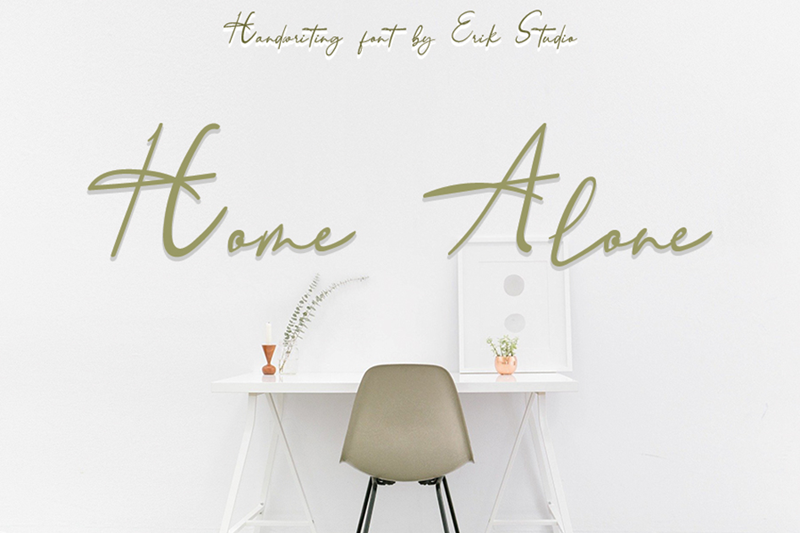
Font name: | Home Alone |
Home Alone is a simple and flowing handwritten font. It is defined by smooth curves and is perfect for fashion branding or editorial designs. Add it confidently to your projects, and you will love the results. Attention : Home Alone handwriting Font is prohibited to use this font for commercial purposes or for profit without the permission of the author/admin, without being known to use this font without permission, will be subject to sanctions 5x the specified price. This font is used only for demos (Demo license) If you want to use this font for commercial use please contact email: erikluluk0@gmail.com or click the link below: https://www.creativefabrica.com/product/home-alone-5/ref/745146/ If you want to see more other fonts, please click:https://www.creativefabrica.com/designer/erik-studio/ref/745146/ Any donations are very appreciated. Paypal account for donation: https://paypal.me/erikstudio1 |